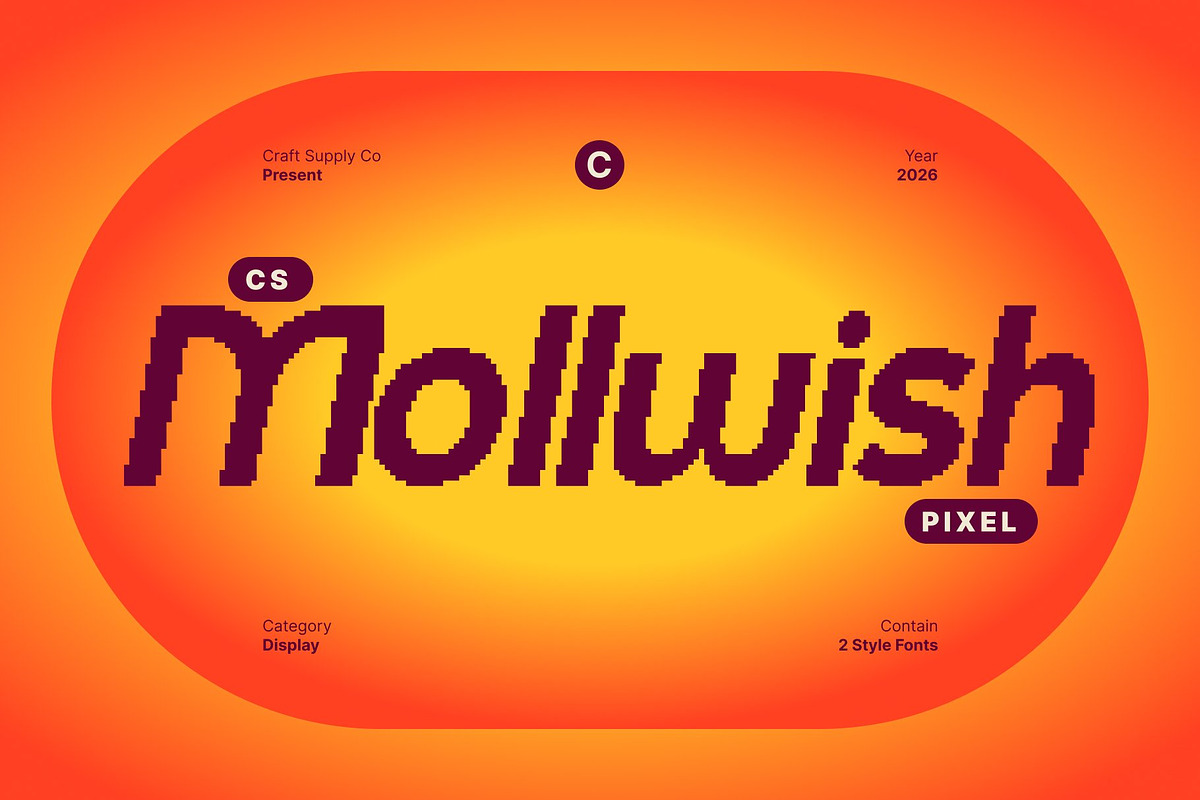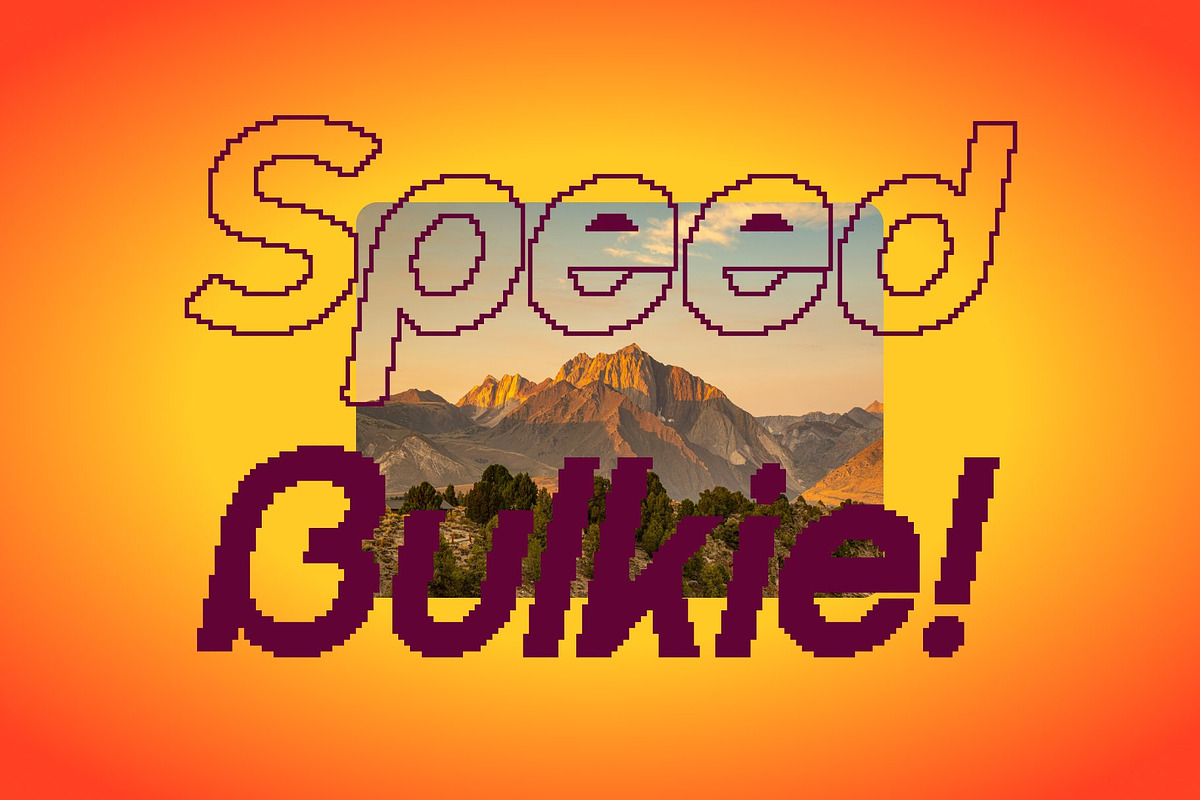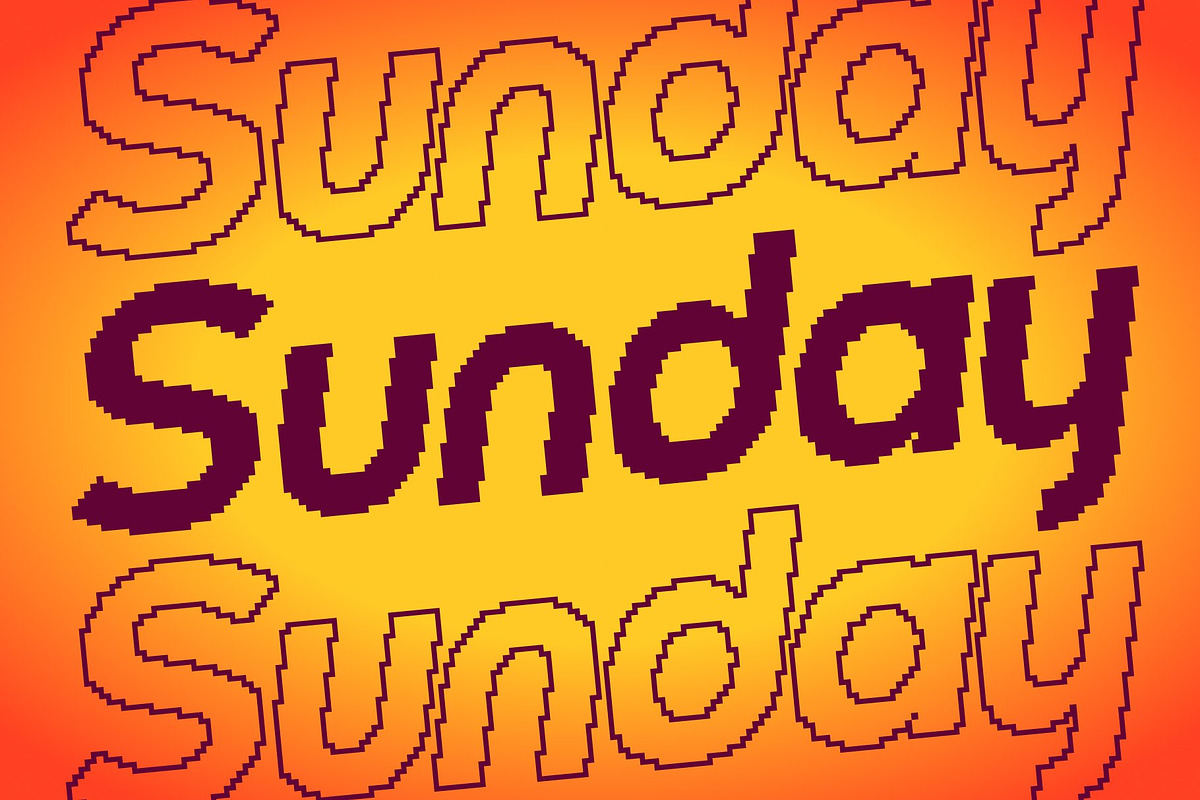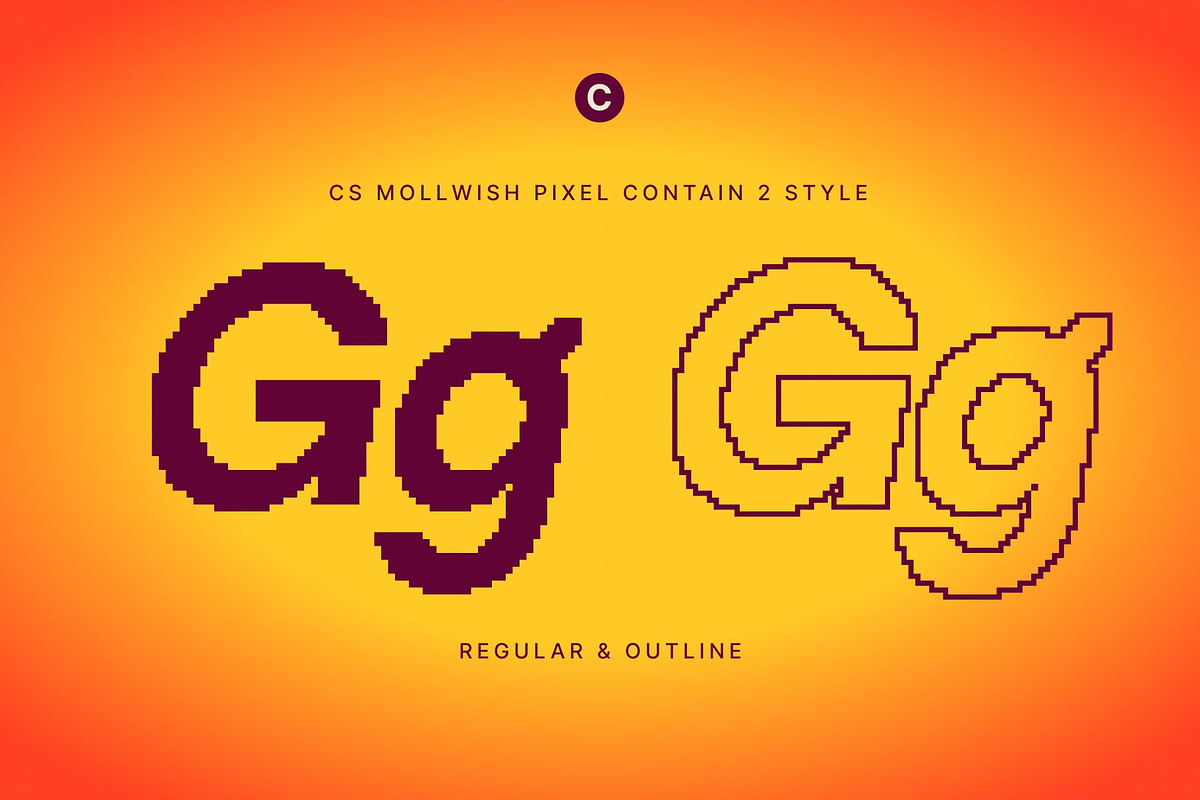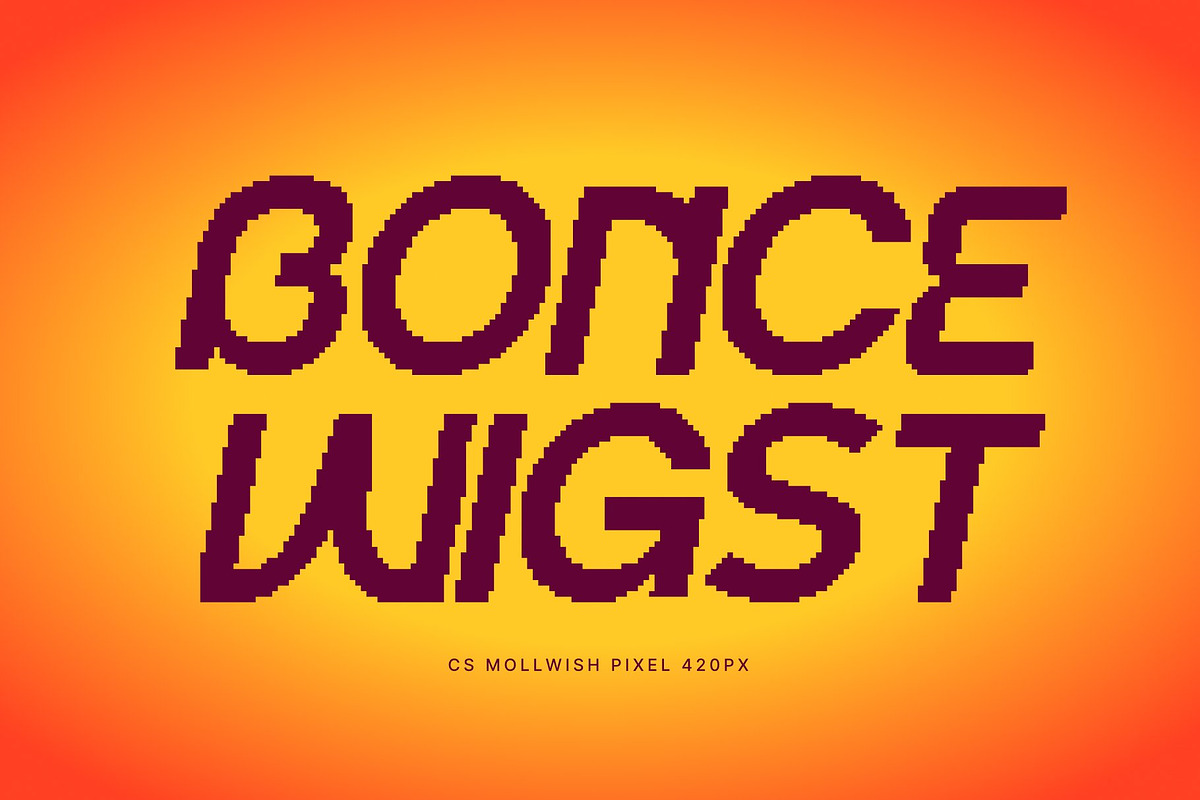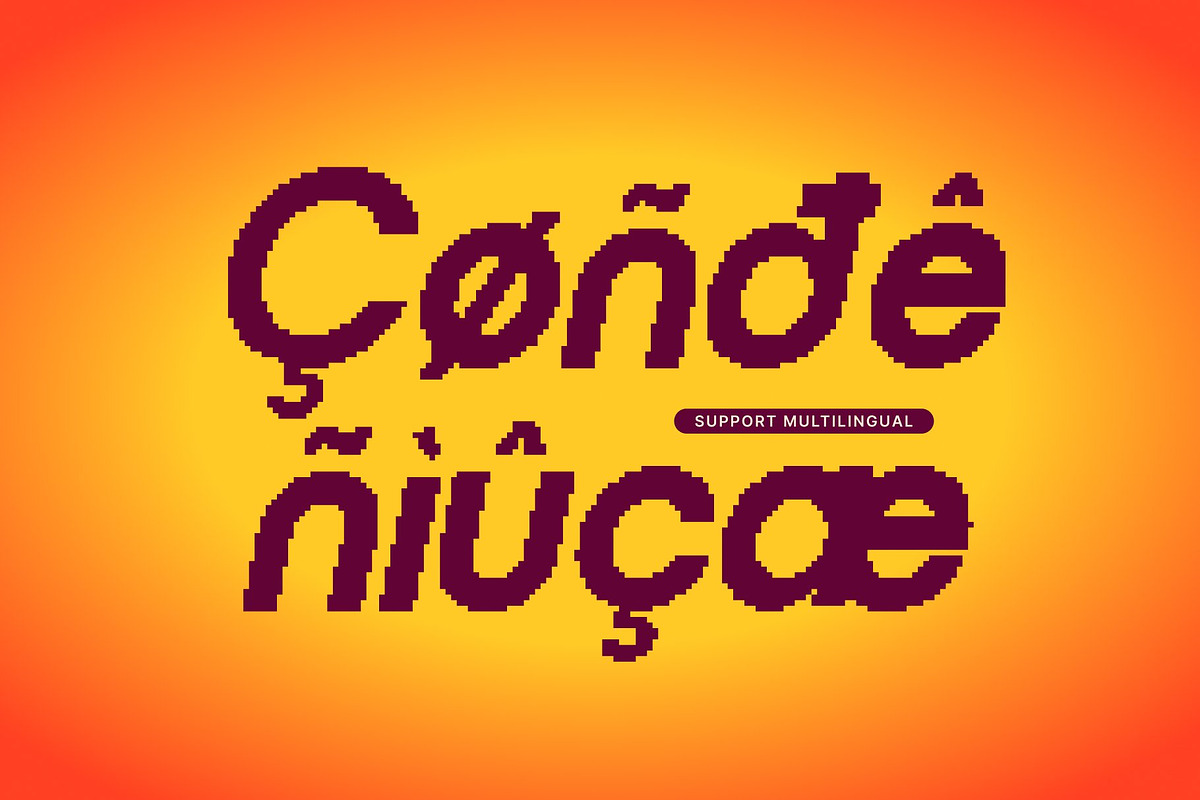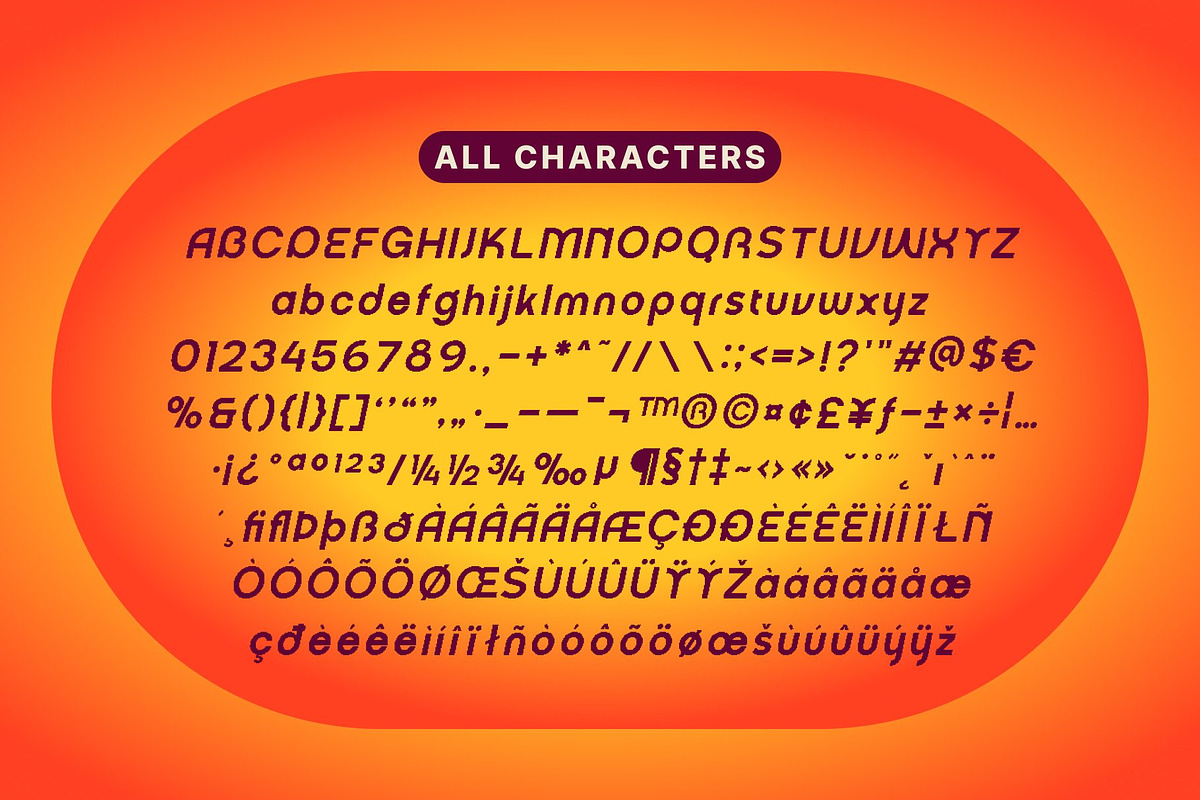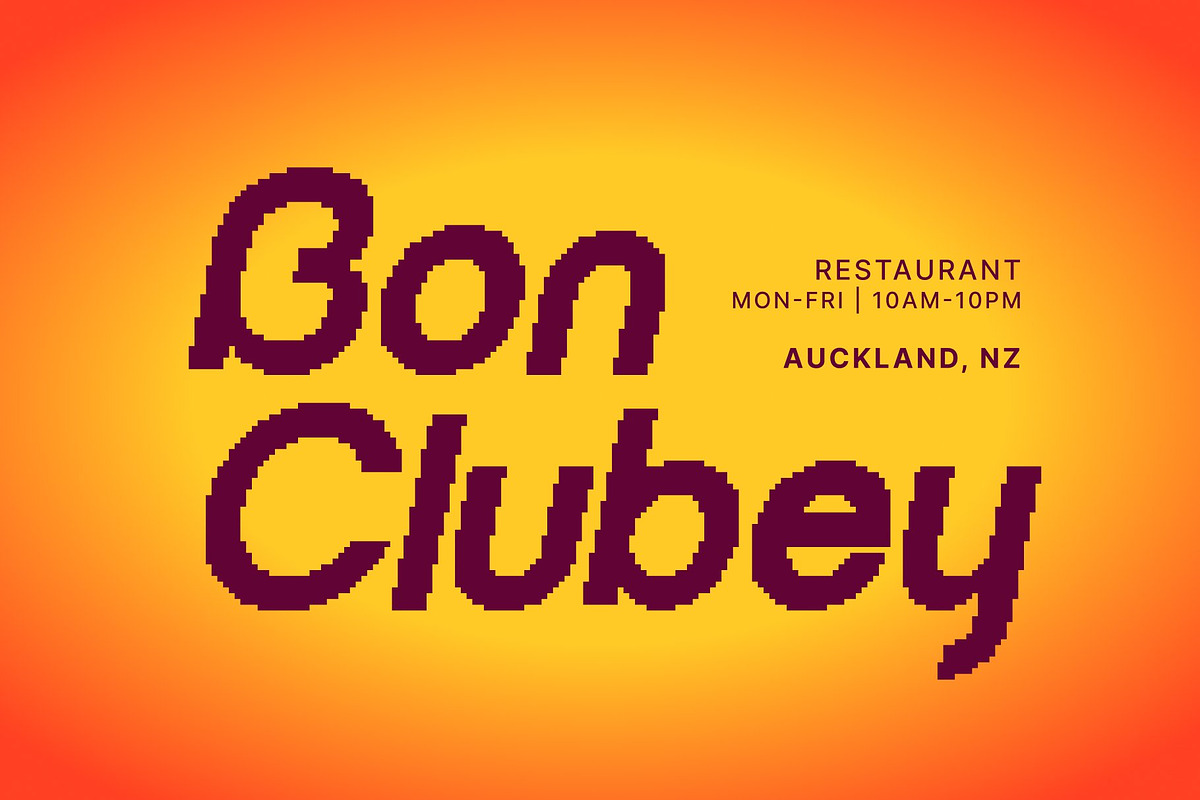
CS Mollwish Pixel
CS Mollwish Pixel – Modern Display Sans Serif Font with a Fresh Look
Modern Display Sans Serif with Fresh Personality This is a modern display sans serif font that blends geometric precision with quirky, distinctive details. Its clean and structured letterforms convey confidence and clarity, while subtle playful elements introduce originality and charm. This thoughtful balance results in a typeface that feels professional yet visually engaging.
Geometric Structure with Quirky Uniqueness Built on strong geometric foundations, the letterforms present a sleek and organized appearance. Sharp corners and rigid construction reinforce its bold structure, while unexpected angles, soft curves, and playful nuances add character and energy. These details allow the font to stand out without appearing chaotic, delivering a confident, slightly masculine presence that feels modern and assertive.
Retro Pixel Aesthetic with a Futuristic Edge With its pixel-based construction, evokes a retro 8-bit impression reminiscent of early digital interfaces and classic video game typography. As a bitmap-style font, it features crisp edges and precise modular forms that enhance its digital authenticity. This retro influence is paired with a subtle futuristic edge, creating a contemporary style that feels both nostalgic and forward-thinking.
Perfect for Modern Branding and Digital Design Ideal for modern branding, digital design, posters, creative headlines, and tech-inspired visuals, excels in display applications. Its combination of geometric precision, pixel aesthetics, and confident character makes it a powerful choice for projects that demand a fresh, modern, and memorable typographic voice.
CS Mollwish Pixel Regular
CS Mollwish Pixel Outline